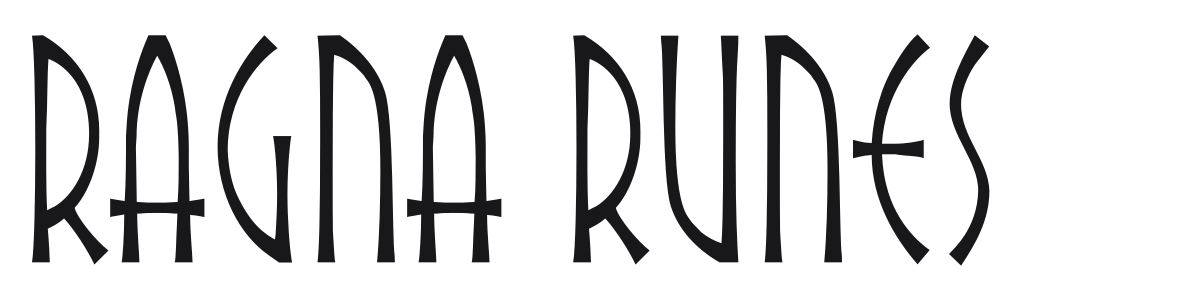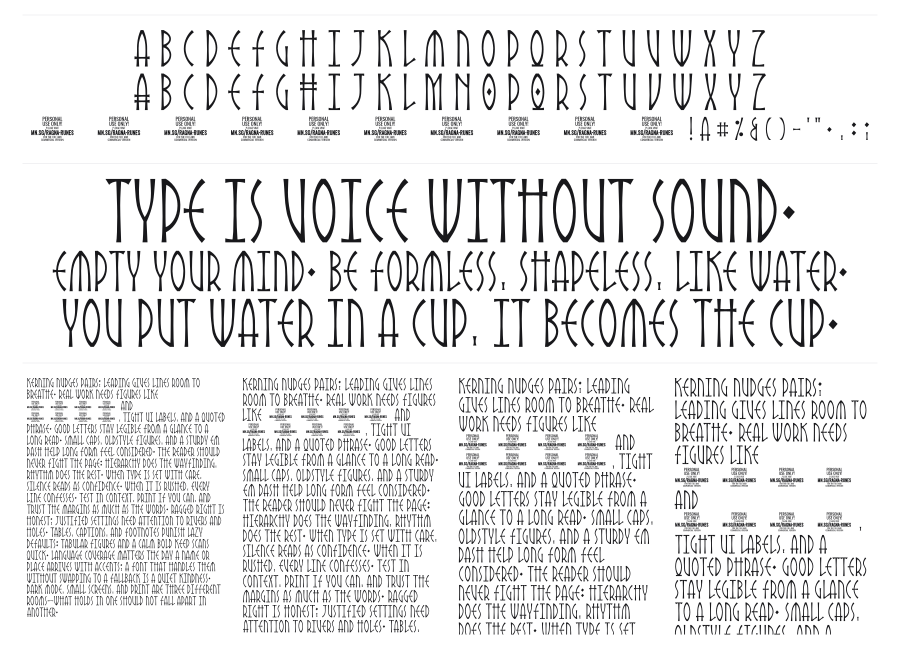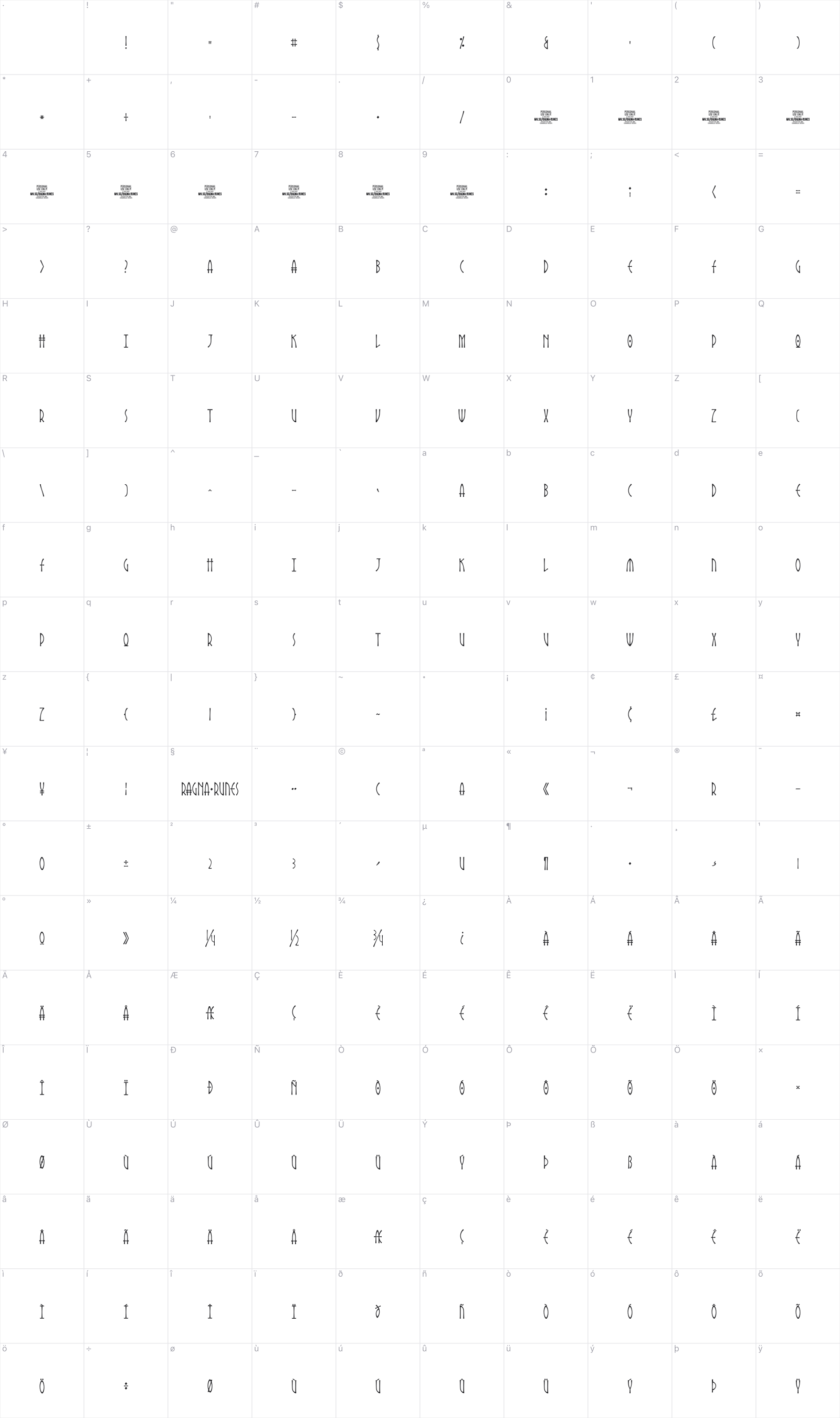
Ragna Runes
Ragna Runes is a condensed display face built around the visual language of historical runes, translating Elder Futhark-style angularity into a full Latin alphabet. Each character is constructed from upright stems and sharp horizontal crossbars that read like carved inscriptions rather than drawn letters. It brings an unmistakable Norse or ancient-world atmosphere to titles, game interfaces, album art, and anything that needs to feel old.